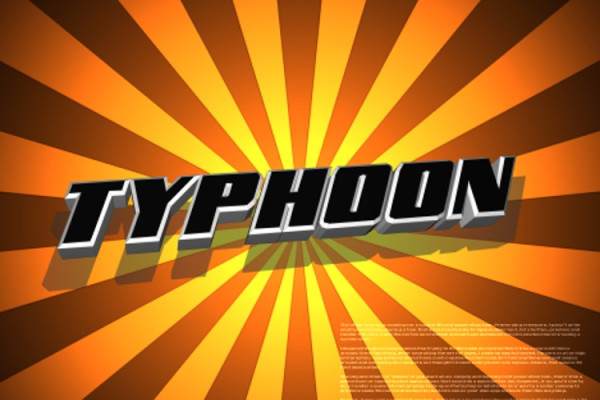
Typhoon Font
Typhoon Font, This bundle features strong, confident and powerful typefaces designed to work great with sports logos, club branding, apparel applications, labels and more.